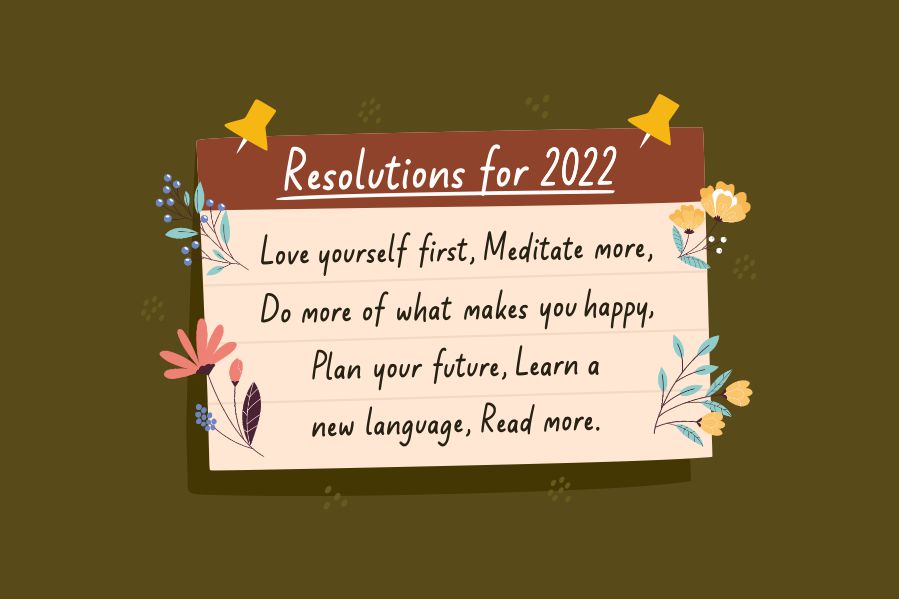
Bittle Almond Font
Bittle Almond Script Font
This is a relaxed and casual looking handwritten font. Bittle Almond  is perfect for product packaging, branding projects, magazine covers, social media development, or just used to express words above the background.